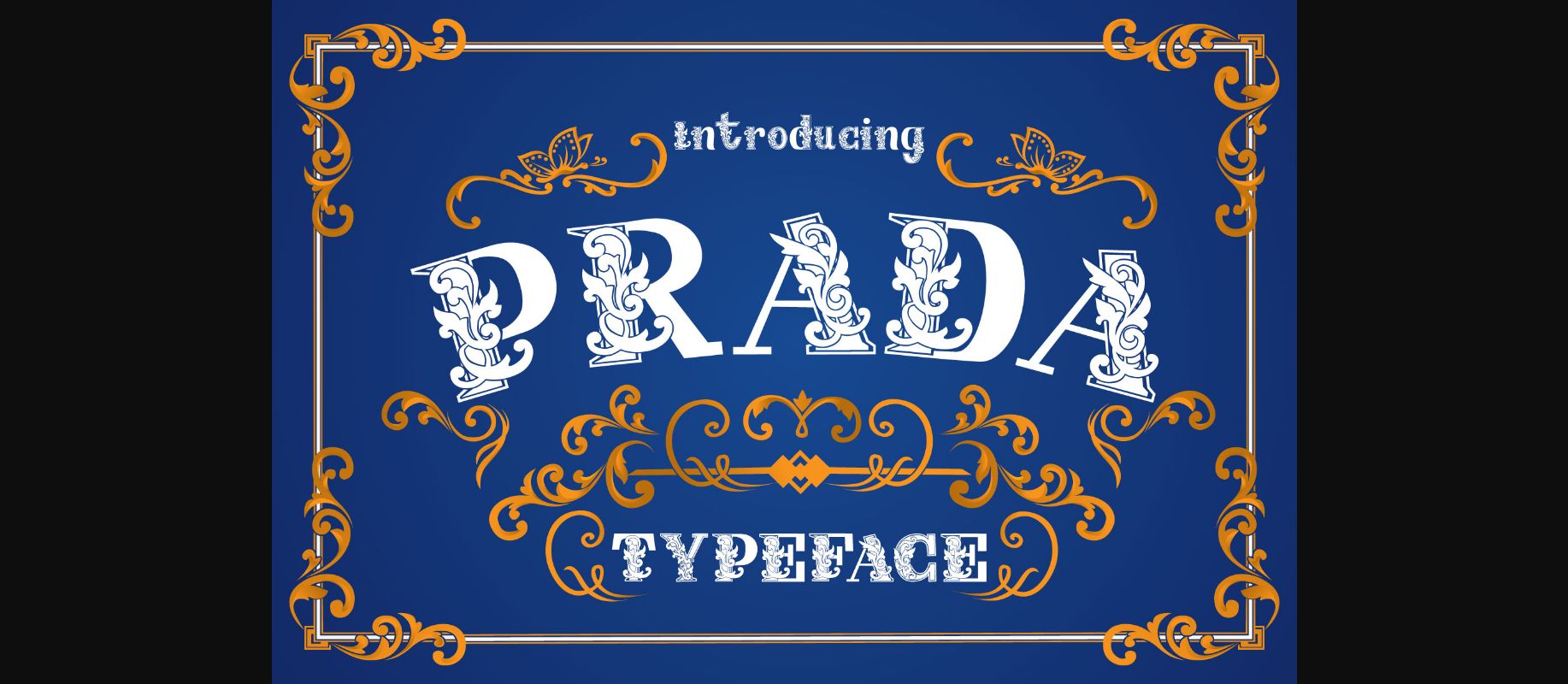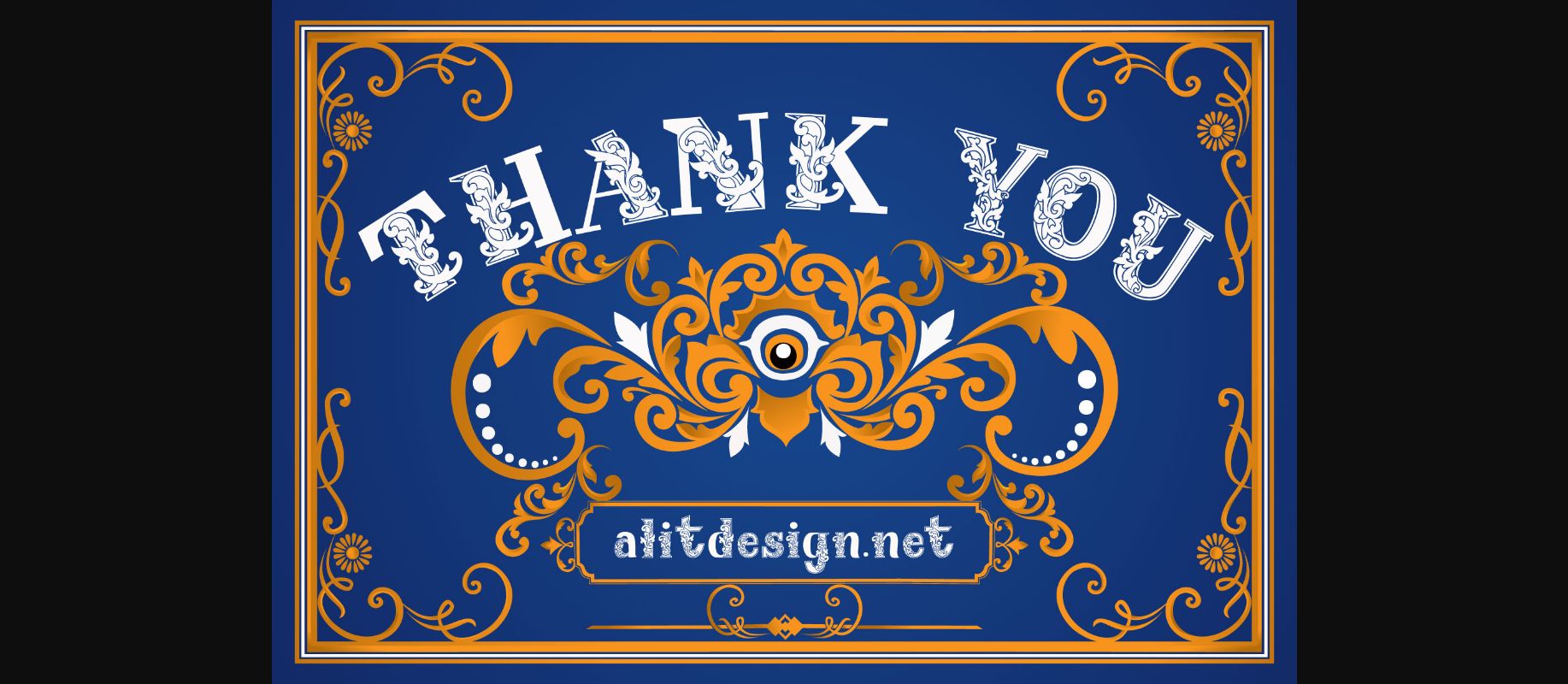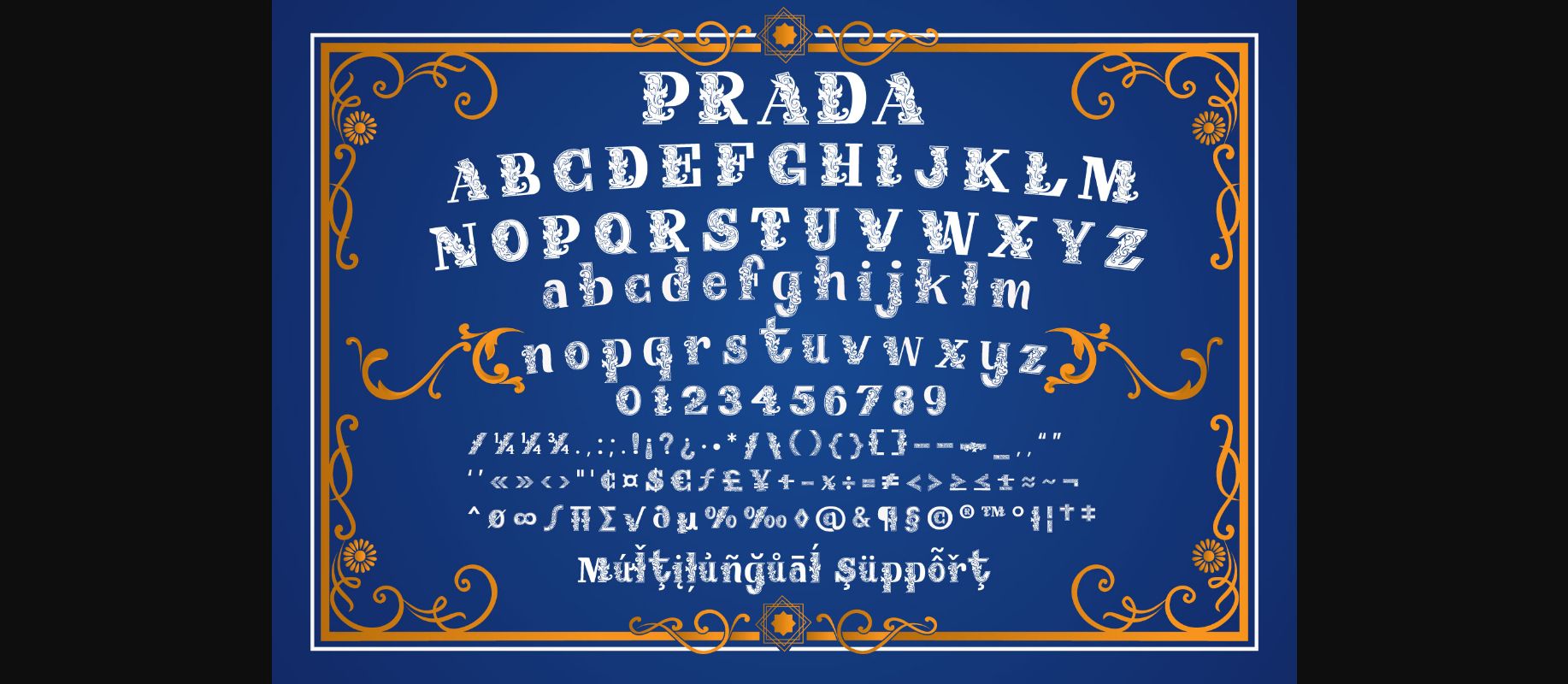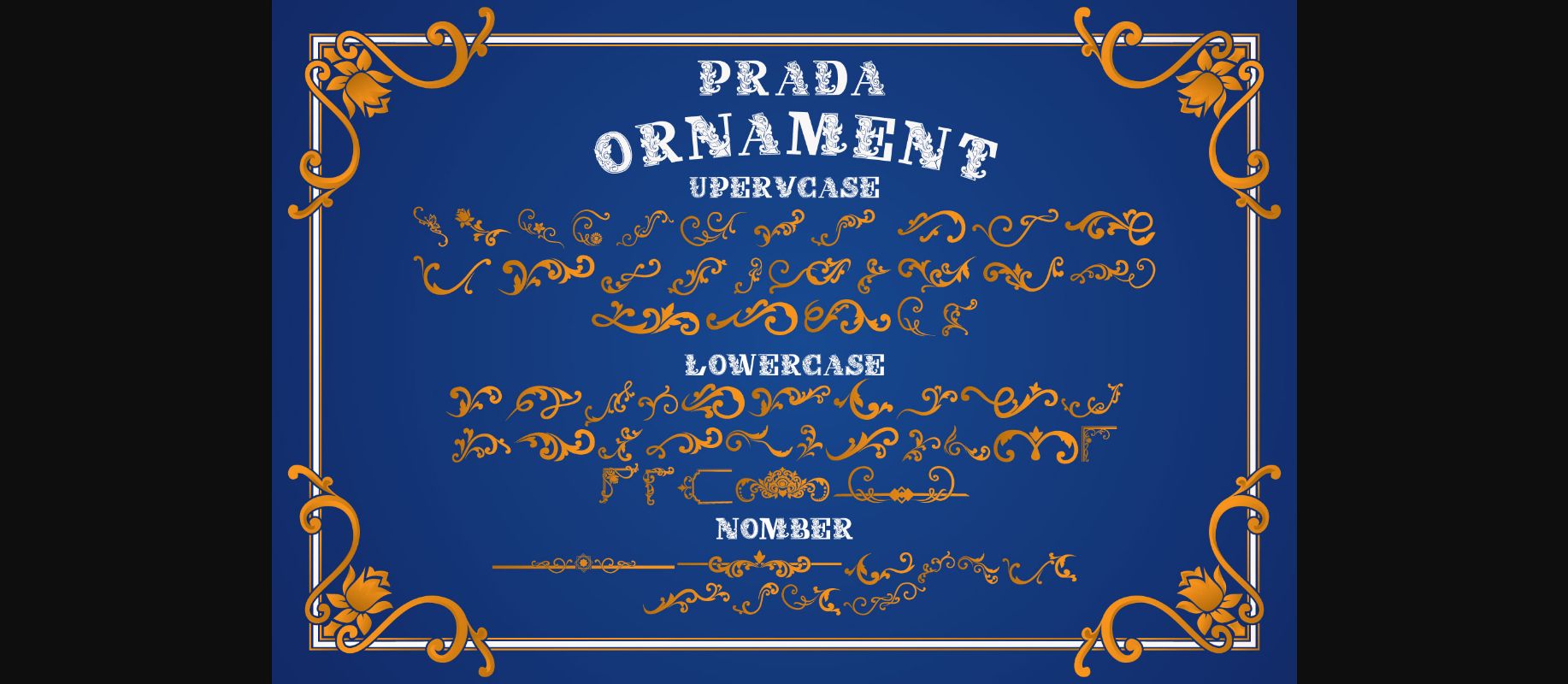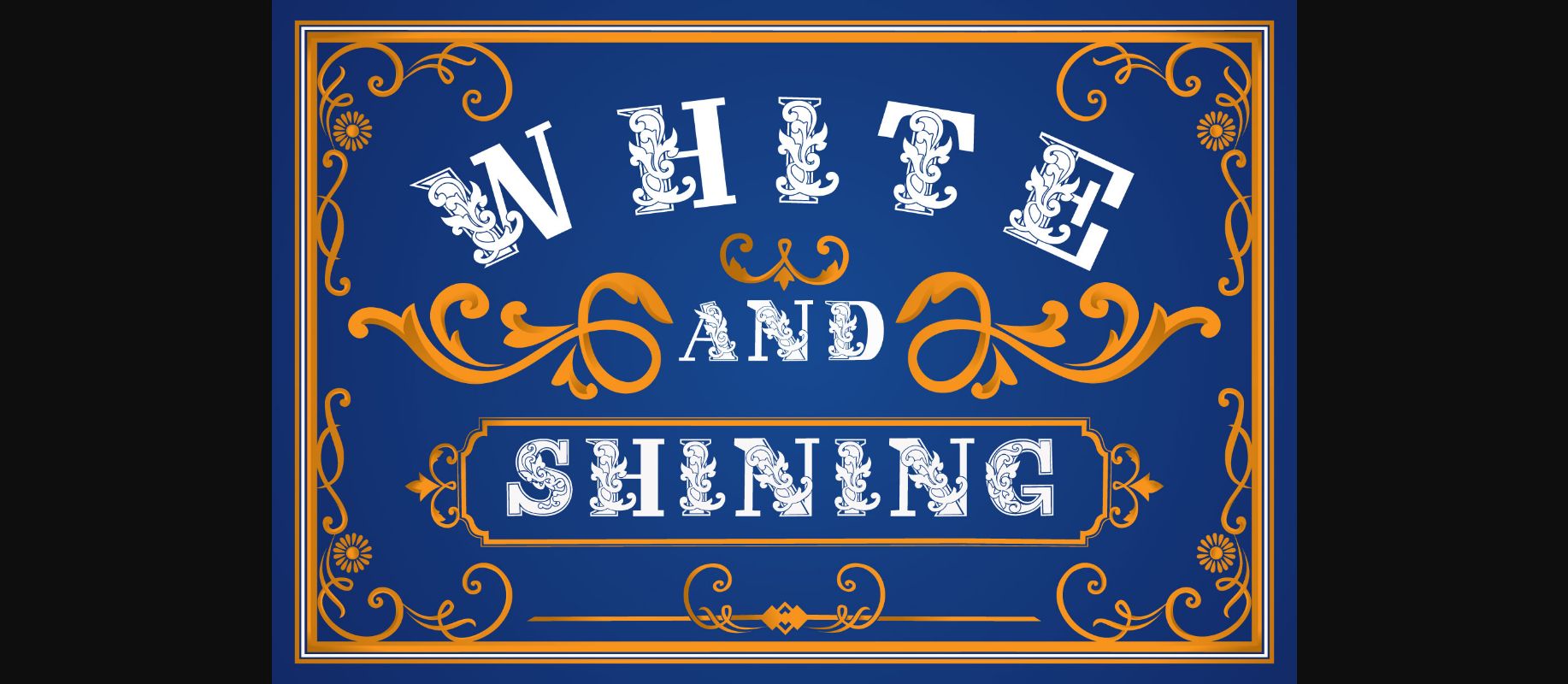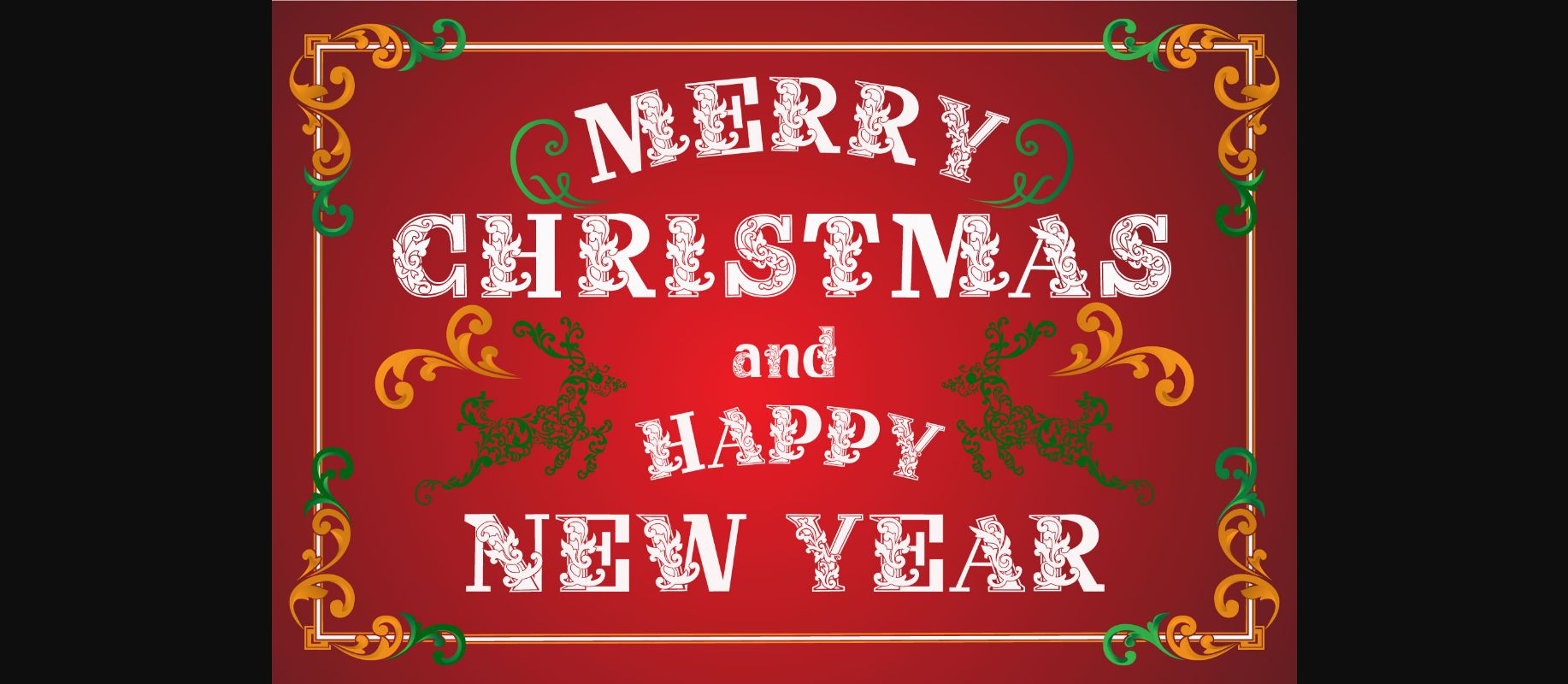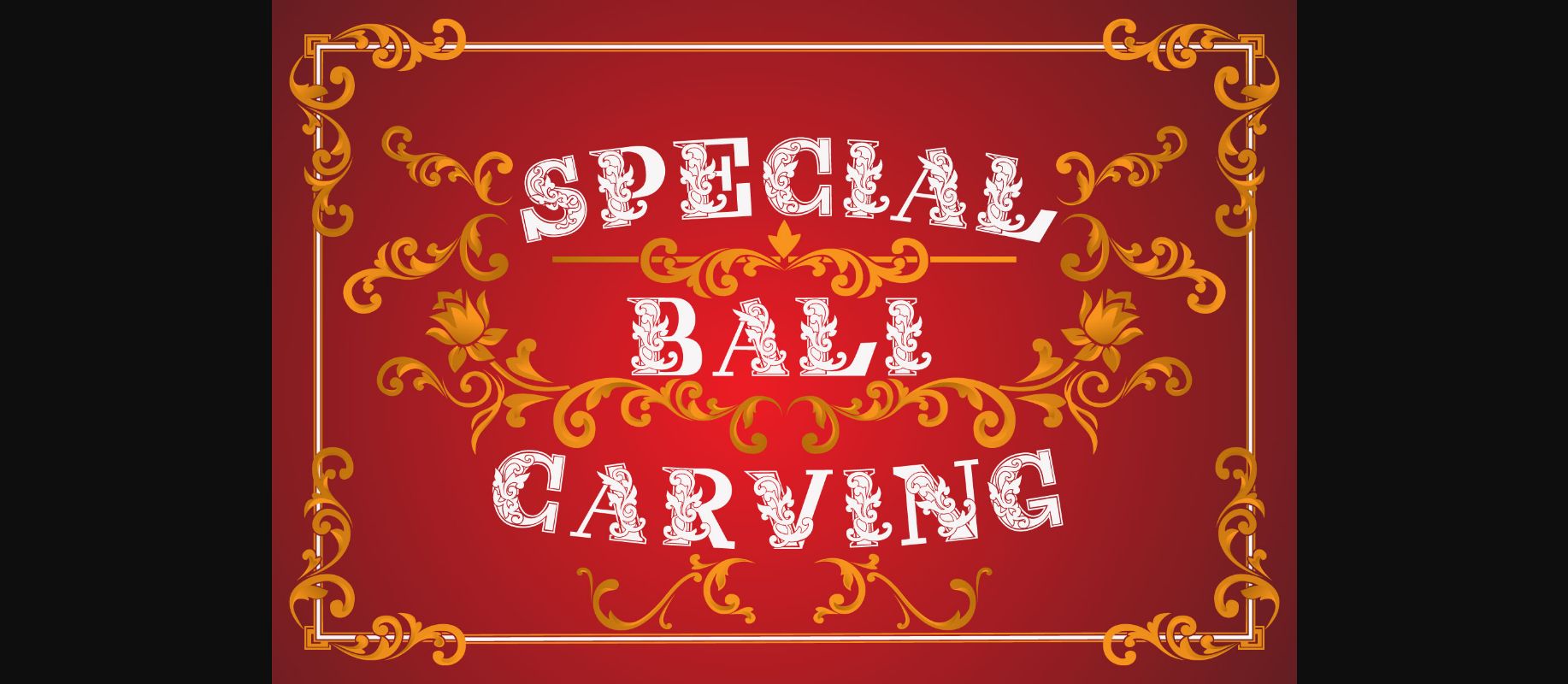
About Prada Font
Prada is an incredibly unique, bold and imposing decorative font. It looks both elegant and classic and it will fit a wide range of design ideas. Add it confidently to your projects, and you won’t be disappointed.